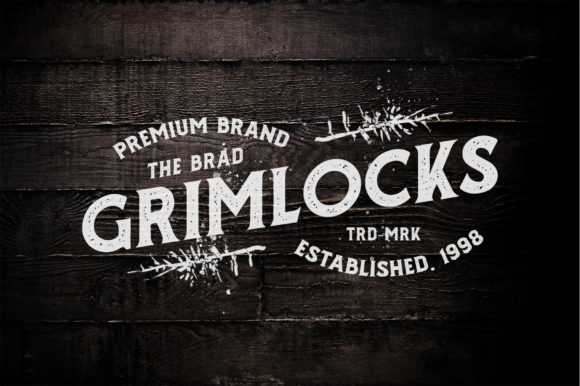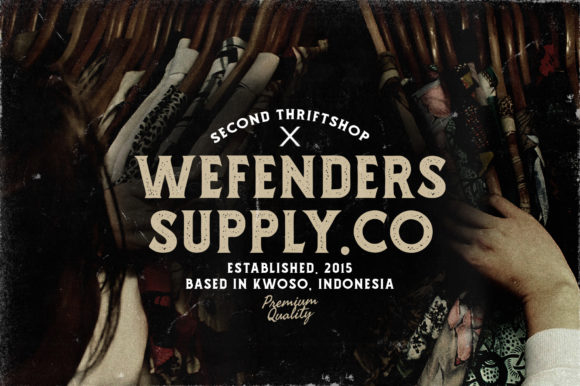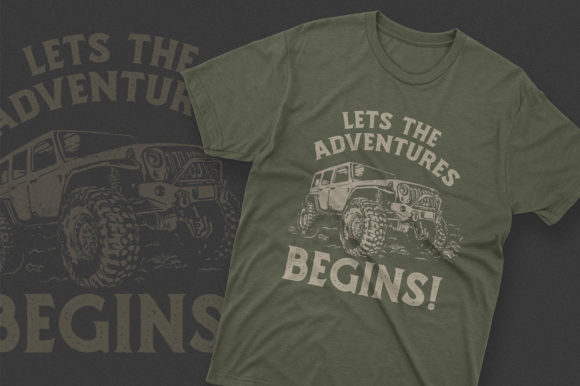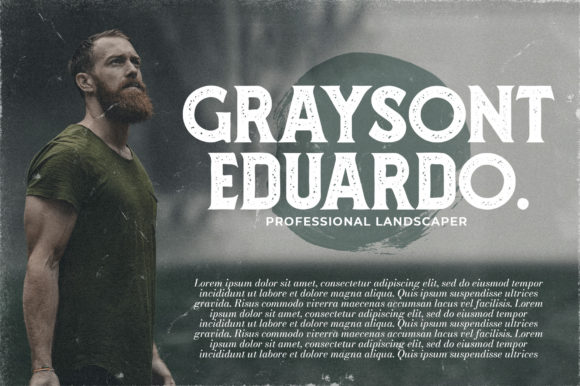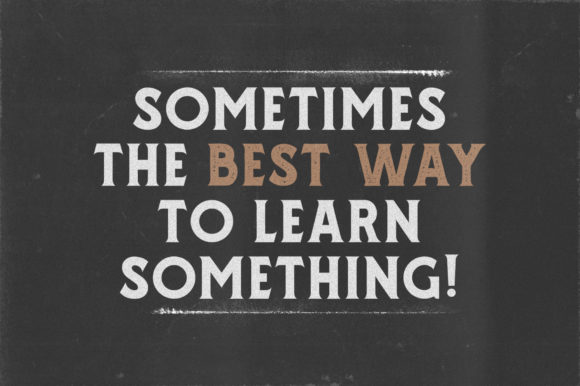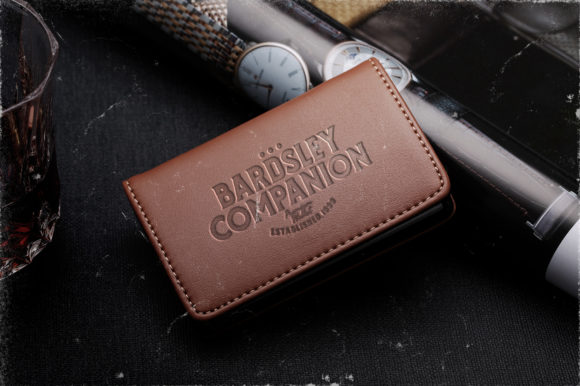
Introducing Gladius Font: Elevate Your Creations with a Cool, Bold, and Vintage Style
Are you looking for a font that can add a touch of coolness and boldness to your designs? Look no further than the Gladius Font. This vintage-styled display font is perfect for designers and crafters who want to elevate their creations and make them stand out. With its rough, thick lettered style, Gladius Font is sure to add a unique and eye-catching element to any project.
What is Gladius Font?
Gladius Font is a display font that is inspired by the classic, bold typography of the past. Its rough, thick lettered style gives it a distinctive look that is reminiscent of vintage posters, signs, and logos. The font is perfect for use in a variety of design projects, including posters, flyers, brochures, and social media graphics.
Key Features of Gladius Font
- Cool and Bold Style: Gladius Font has a cool and bold style that is sure to grab attention. Its thick lettered style makes it perfect for use in headlines, titles, and other design elements where you want to make a statement.
- Vintage Inspiration: The font is inspired by classic, vintage typography, giving it a unique and timeless look that will never go out of style.
- Rough and Distressed Texture: The font has a rough, distressed texture that gives it a worn, aged look. This texture adds a level of depth and character to your designs.
- Easily Readable: Despite its bold and rough style, Gladius Font is easily readable, making it perfect for use in a variety of design projects.
How to Use Gladius Font in Your Designs
Gladius Font is a versatile font that can be used in a variety of design projects. Here are a few ideas for how you can use it:
- Posters and Flyers: Use Gladius Font as a headline font to grab attention and draw people in.
- Social Media Graphics: Use the font to create eye-catching social media graphics that will stand out in crowded feeds.
- Logos and Branding: Use Gladius Font as a logo font to add a touch of boldness and personality to your brand.
- Packaging Design: Use the font to create bold and eye-catching packaging designs that will stand out on store shelves.
Tips for Getting the Most Out of Gladius Font
Here are a few tips for getting the most out of Gladius Font:
- Use it Sparingly: Because Gladius Font is so bold, it’s best to use it sparingly. Use it for headlines and titles, and pair it with a simpler font for body text.
- Experiment with Colors: Gladius Font looks great in a variety of colors, so don’t be afraid to experiment and find the perfect color for your design.
- Pair it with Other Fonts: Gladius Font pairs well with a variety of other fonts, so don’t be afraid to experiment and find the perfect combination for your design.
Gladius Font is a cool, bold, and vintage-styled display font that is perfect for designers and crafters who want to elevate their creations. With its rough, thick lettered style, Gladius Font is sure to add a unique and eye-catching element to any project. Whether you’re creating posters, social media graphics, logos, or packaging designs, Gladius Font is a great choice. So why wait? Download Gladius Font today and start creating amazing designs!